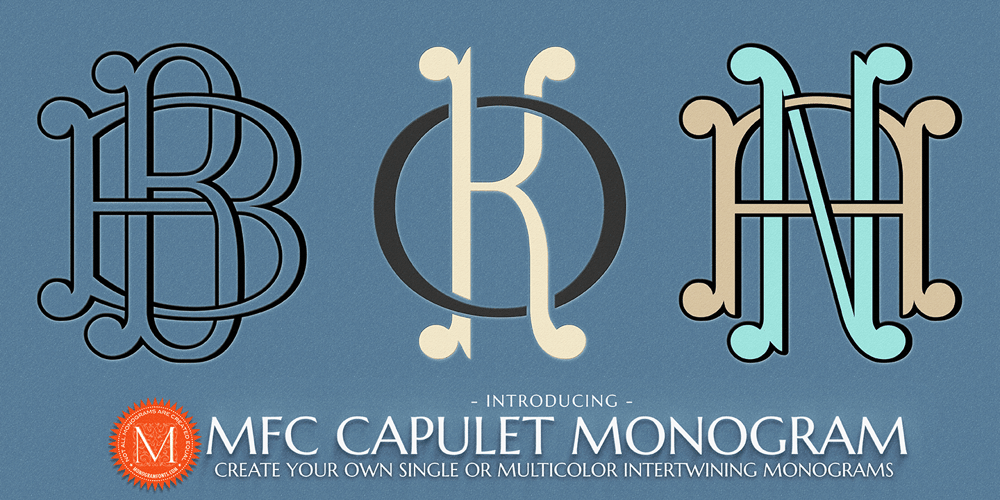
MFC Capulet Monogram
MFC Capulet Monogram font
MFC Capulet Monogram Font Family was designed by Jim Lyles, Brian J. Bonislawsky and published by Monogram Fonts Co.. MFC Capulet Monogram contains 33 styles and family package options. The source of inspiration for MFC Capulet Monogram is an alphabet set from the book, “Monograms and Alphabets for Combination” by Dollfus Mieg & Cie, first published in the 1890’s. MFC Capulet Monogram utilizes OpenType features that enable you to create more complex monograms, so what began originally as two sets of 26 roman letters grew to an astounding 735 character font in order to create a unique interwoven monogram effect! Capulet Monogram can create one, two, or three letter monograms as well as a unique two letter intertwined monogram style – made by simply typing a lowercase immediately followed by a Capital (using OpenType Ligatures). Letterforms combine to make elegant monograms like designer branding, and you can also choose to type in all capitals or all lowercase for simple title and headlines as well. (Note that due to the manner in which combination monograms are formed, some letters like the I will change to script-like forms to avoid being hidden in overlaps). Download and view the Capulet Monogram Guidebook if you would like to learn a little more.